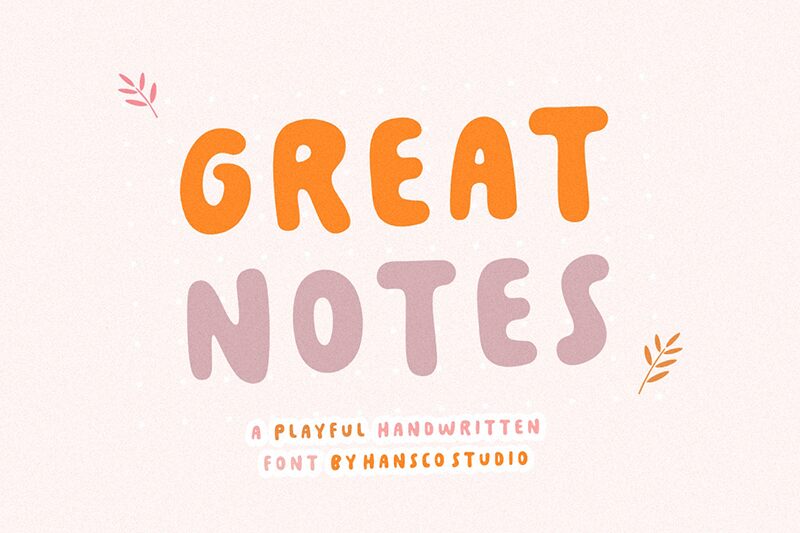
Great Notes font is a free handwritten font from HansCo that presents genuine brush strokes in well-rounded lowercase and uppercase letters. This natural presentation, with a few rough outlines and uneven ends, makes this font appear as if it was written with a flat dry paintbrush. It is casual and approachable, giving it an easy-on-the-eyes appearance which attracts readers’ attention and makes them feel comfortable reading any paragraph designed with it.
Why not use this superb typeface for your personal diary or notebook? You can write whatever texts you like using this modern font to bring out the details of your work. Other similar case uses are headings for magazine articles, paragraphs in newspapers, or books.